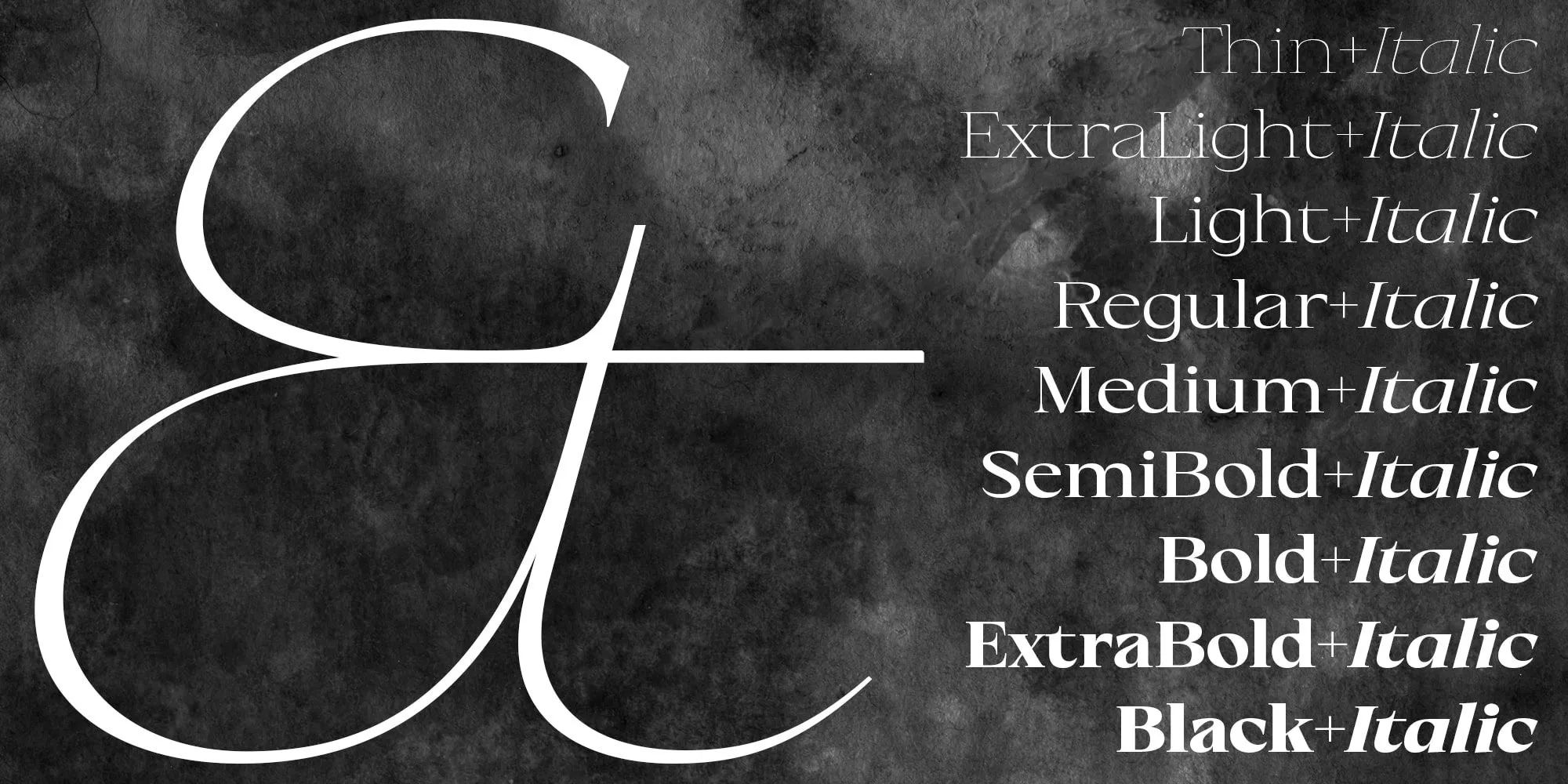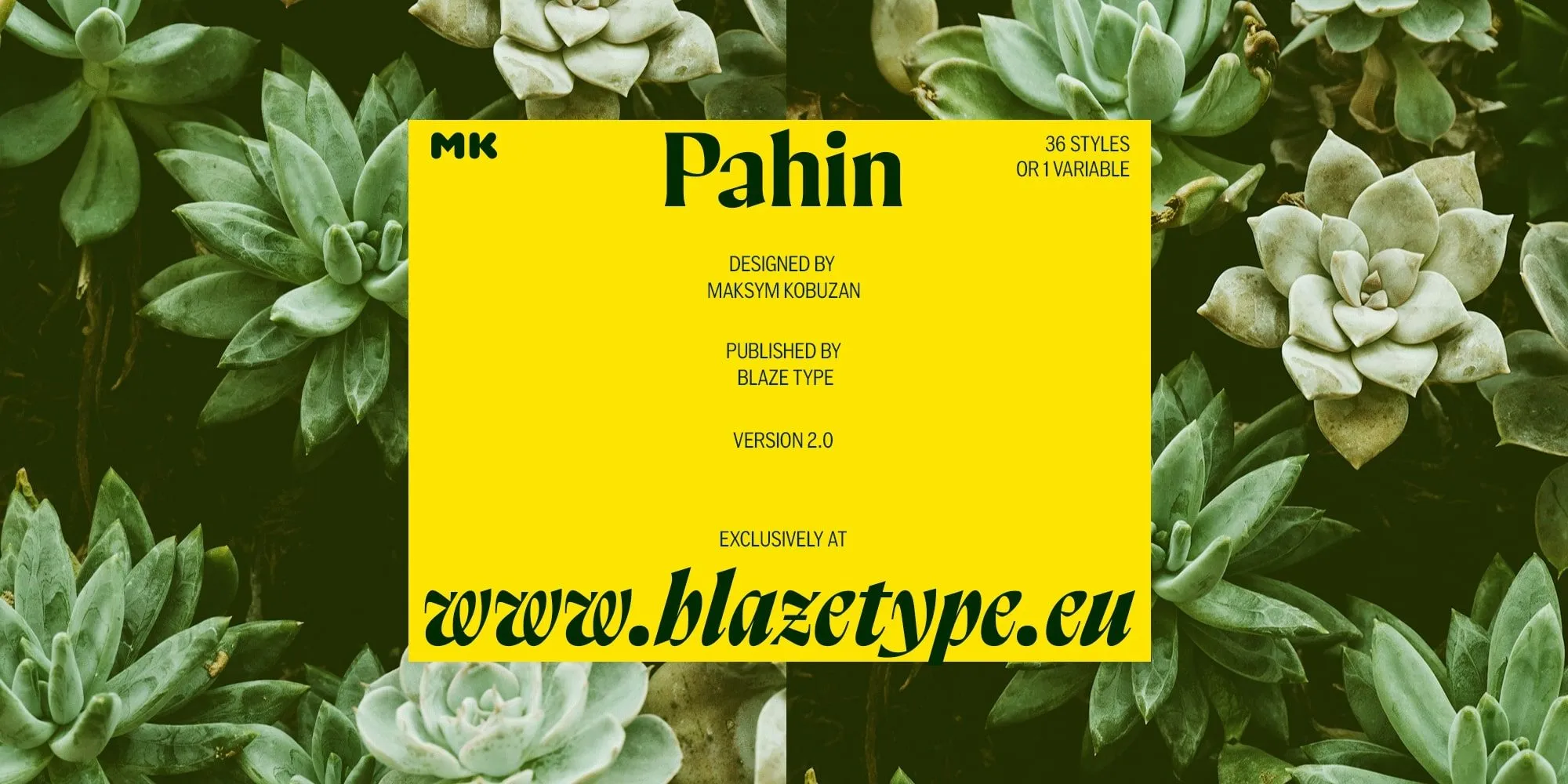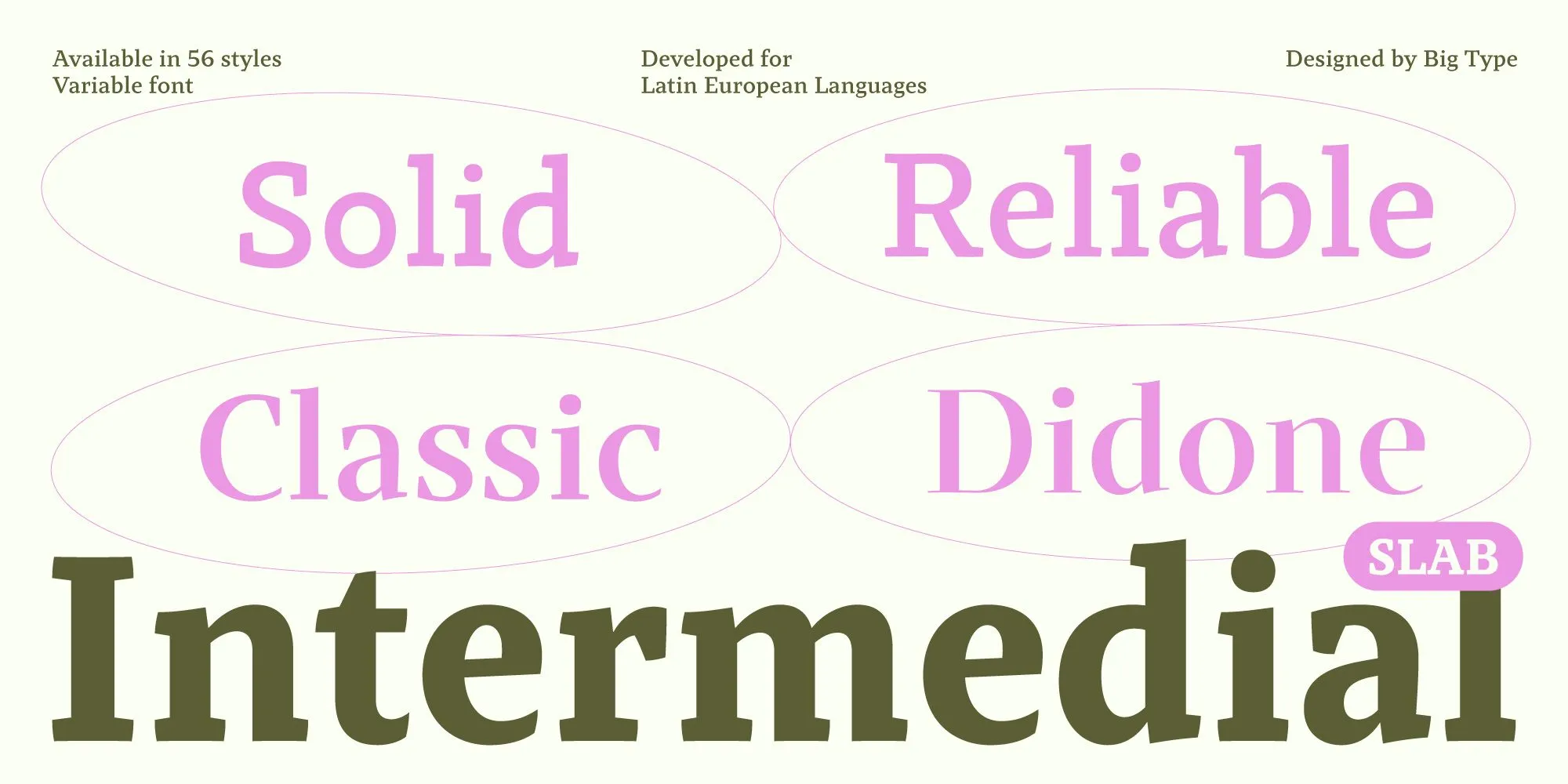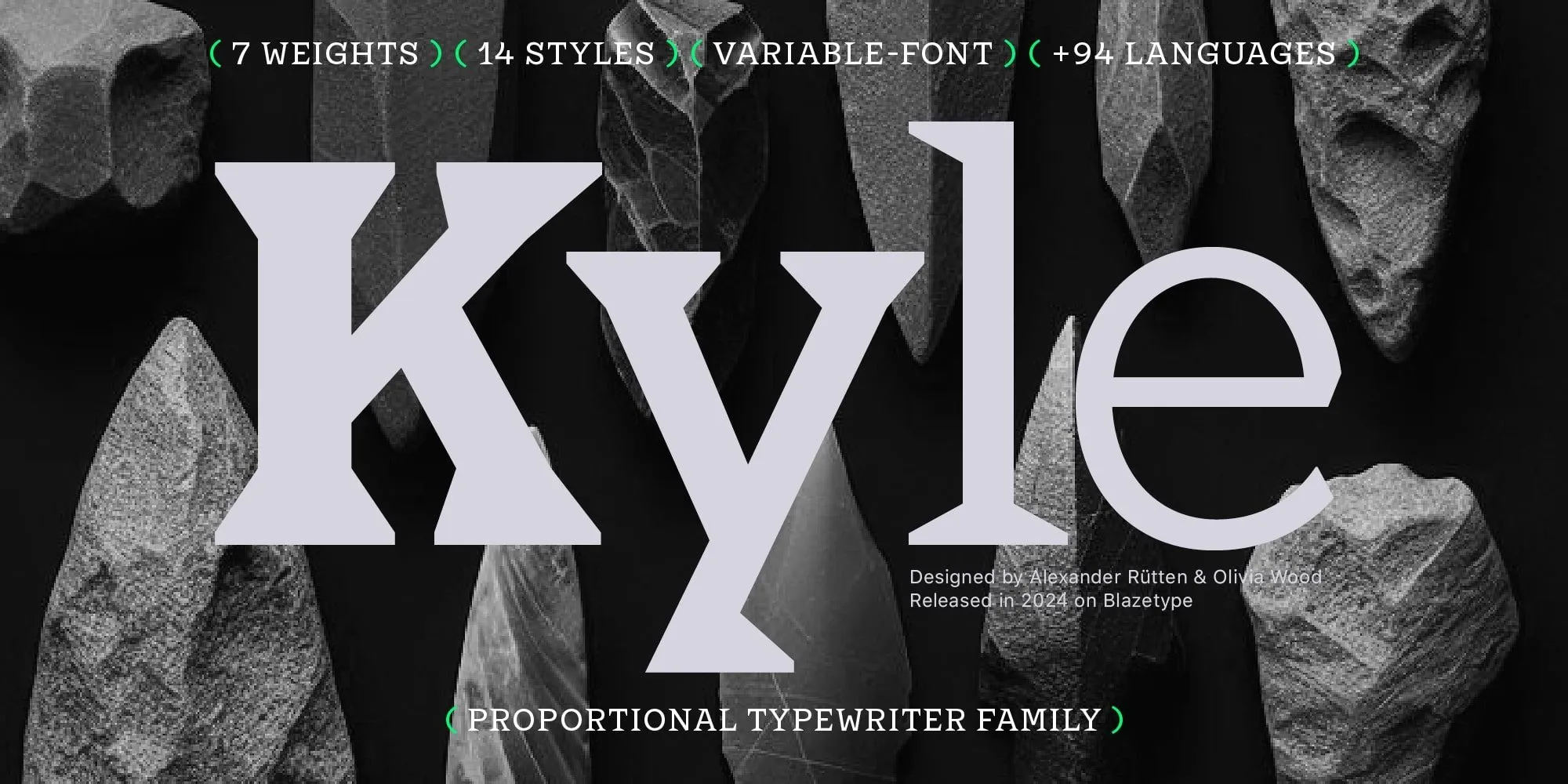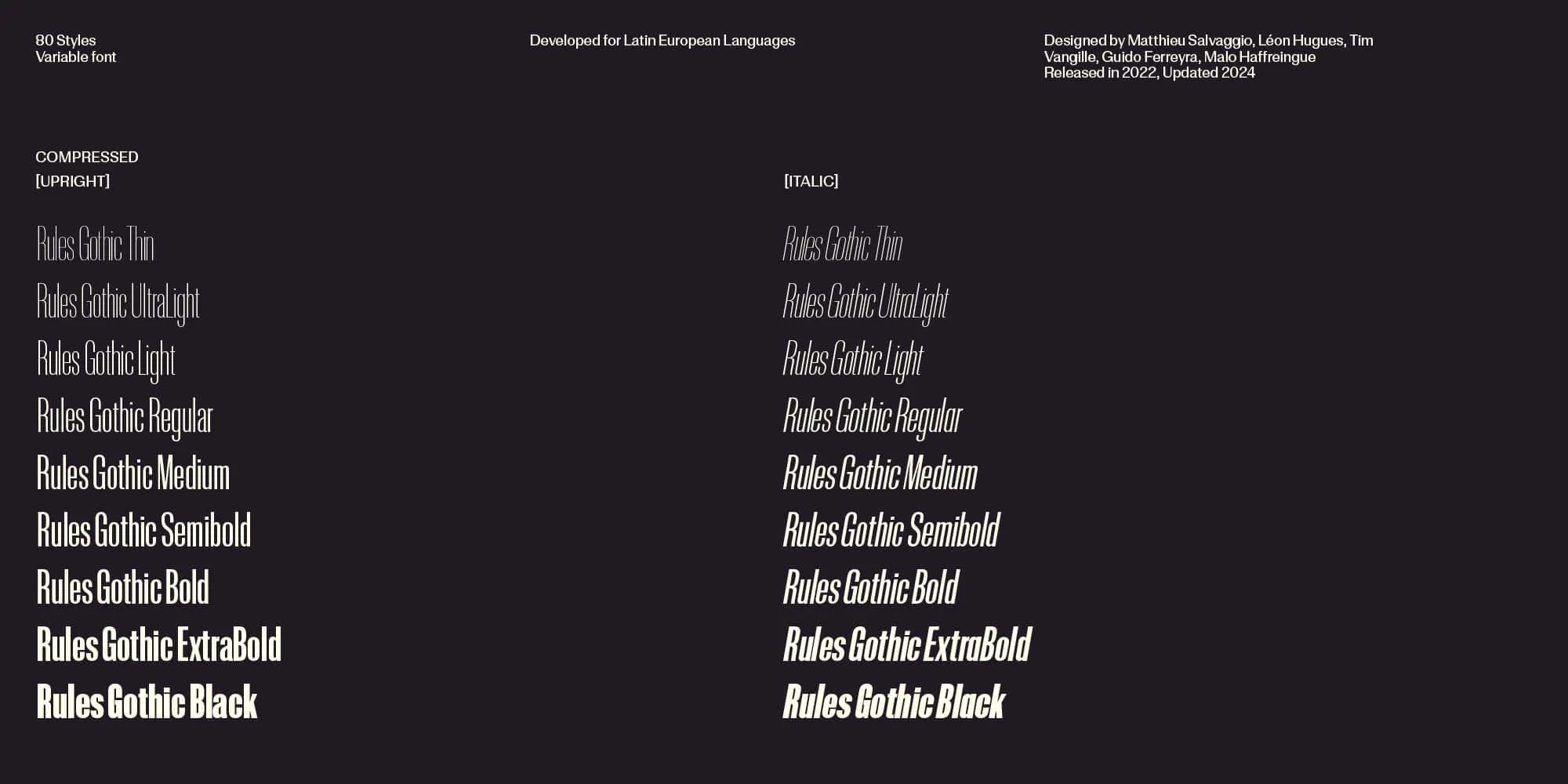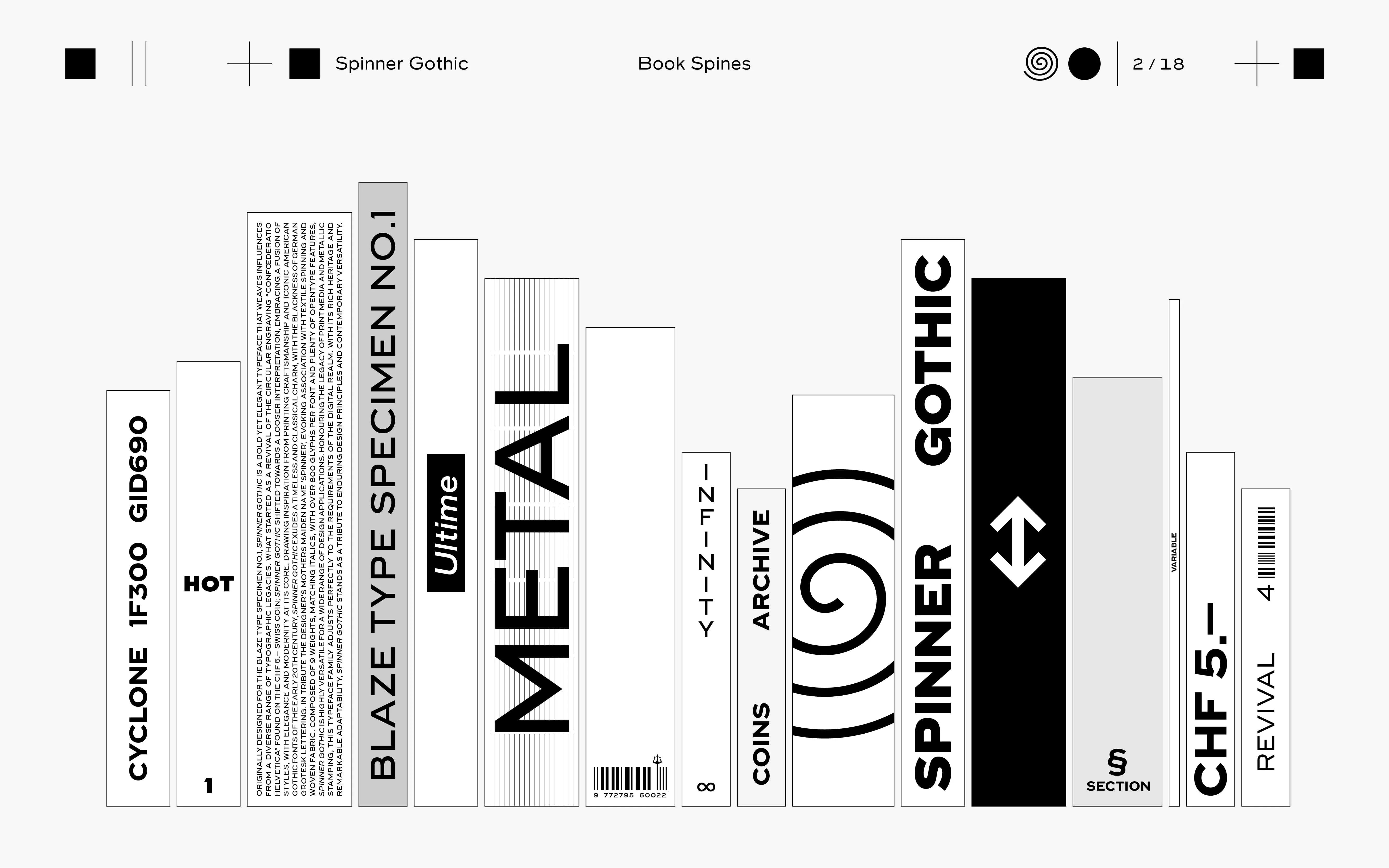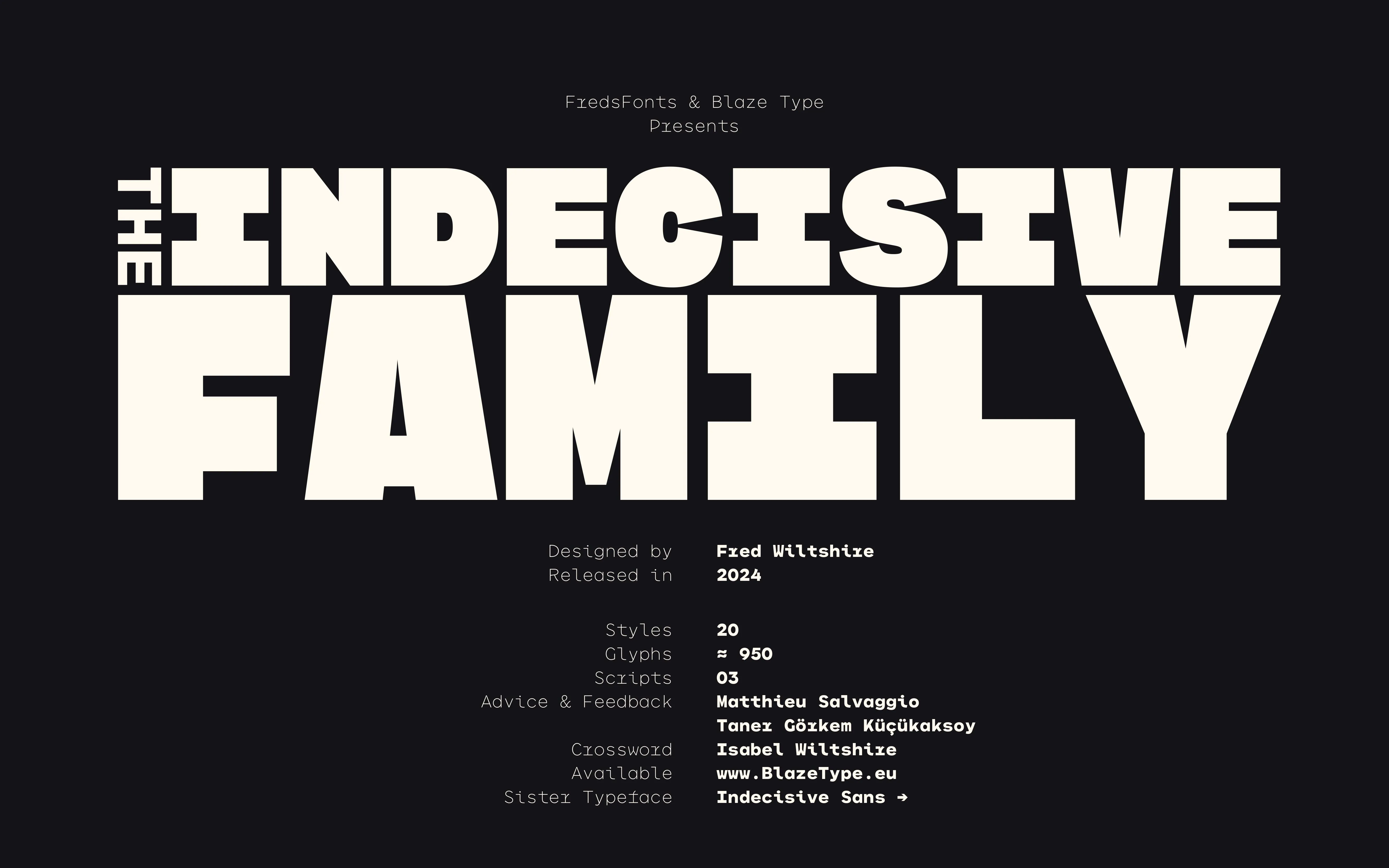
2024 Type Trends
Like last year, Blaze Type brings you a retrospective of the past year, rich in encounters with new type designers and rich in production.
In a few figures, 2024 means:
23 new or updated fonts families
875 published fonts
13 new designers
The foundry’s catalog literally exploded in 2024: 875 fonts published or updated in 365 days, enough to feed you more than daily. Within this plethoric production, a few trends are emerging.
Catalog extension
One of our most important policies is to update our catalog, whether by extending the glyph set or varying the formats offered, notably with the generalization of Variable Fonts for more manageable and lightweight files. The new families on offer are increasingly versatile, with many releases exceeding 40 fonts files, establishing many families as future standards capable of playing as much a role in the titles of your documents as in the legal wording of contracts.
Indecisive Sans & Mono (40 fonts, Fred Witshire) is an example of this broadening of the spectrum, with a base of contemporary geometric lineal adapted into a Mono with strong character.
In the same way, Kyle & Kyle Mono (24 fonts, Alexander Rütten & Olivia Wood) offers an extended family between a linear mono typeface and a kind of lapidary with triangular serifs... All with a touch of typewritter, making the Mono version an obvious choice.
Silvana Text (10 fonts, Siri Lee Lindskrog) is the working text adaptation of its big sister, Silvana Display. The work involved not just an optical adaptation, but a complete overhaul of the design, the old-fashioned way, glyph by glyph.
Rules Gothic (90 styles, Matthieu Salvaggio, Léon Hugues, Guido Ferreyra, Malo Haffreingue) is a polished and refined version of Rules, with purer, tauter curves. This work demonstrates Blaze Type's determination to bring you products that are constantly evolving, whether in terms of file formats, glyphsets enabling the composition of numerous languages, or aesthetically with deep retouching.
Universalism first!
Extending the catalog to include different styles is a quest for universalism. Our new products are directly in line with this approach
Aman (72 fonts, Matthieu Salvaggio & Ferdinand Del Fabbro): Aman is a versatile serif typeface family, crafted to perform seamlessly across a wide range of sizes-from striking display headlines to fine, legible captions. Inspired by the lettering from the book Amen, this typeface brings together the timeless elegance of old-style designs like Plantin with the refined sophistication of transitional styles such as Times New Roman. Its most distinctive features are the baroque flourishes seen in the beaks and head serifs, while its gracefully arcing terminals lend a subtle, refined touch to the letterforms.
Pahin (36 fonts, Maksym Kobuzan): Pahin is an expressive flared serif that combines sharp forms with intricate contours. Its plasticity is inspired by the graceful curves of stems and flowers, creating vibrant and organic forms. Sharp elements contrast with soft and flowing lines, reminiscent of thorny thorns protecting delicate flowers or fruits. At the same time, Pahin inherits and is based on the tradition of calligraphy.
Pahin is distinguished by an abundance of loops, especially in the alternative set, which resemble, for example, a grapevine. These elements give the typeface freshness, flexibility and naturalness, making it ideal for use in large sizes, where its expressiveness is fully revealed.
Slab!
At Blaze Type, the main trend of 2024 has been to demonstrate our love for Slabs, whether traditional or Mono (Indecisive Mono, Kyle Mono). However, we're not able to remain confined to a stereotype, and our new releases go to great lengths to re-imagine the definition of what a Slab is.
Intermedial Slab (56 styles, Karol Mularczyk) is proof that slabs are one of the most interesting and under-exploited typographic genres: Slab, Slab Reliable, Classic, Didone.
The adaptability of Intermedial Slab makes it a powerful asset for creating cohesive and flexible frameworks within any design system. Whether for branding, editorial layouts, user interfaces, or print materials, this type family's range of styles allows for seamless integration across platforms. Designers can leverage its flexibility to craft visually engaging, responsive typographic solutions, making Intermedial Slab an essential tool for building unified, adaptive, and highly effective design systems.
Rules Slab (90 fonts, Matthieu Salvaggio, Léon Hugues, Tim Vanhille, Guido Ferreyra, Malo Haffreingue), on the other hand, is the modern Slab, less old-fashioned than the early nineteenth-century Slabs, but wiser than the Intermedial Slab. In short, it's a classic, dusted-off design that designers will love to push even further than our preconceived ideas.
Grotesk Passion
2023 had already been the year of the Sans Serif, with numerous releases (Surt, Homie, Digital Sans, Fusion, Routine, Relais, Neue Tarasque).
Holise (16 fonts, Ines Davodeau) is a versatile typeface that masterfully blends modern and vintage aesthetics. Its condensed form is adorned with distinctive, spicy details on the serifs, giving it a unique and captivating character. This elegant font exudes sophistication, making it a perfect choice for adding flair and distinction to your titles and large-scale text. Whether you're aiming for a contemporary look or a classic feel, Holise brings originality and charm to any design, ensuring your work stands out with a touch of refinement.